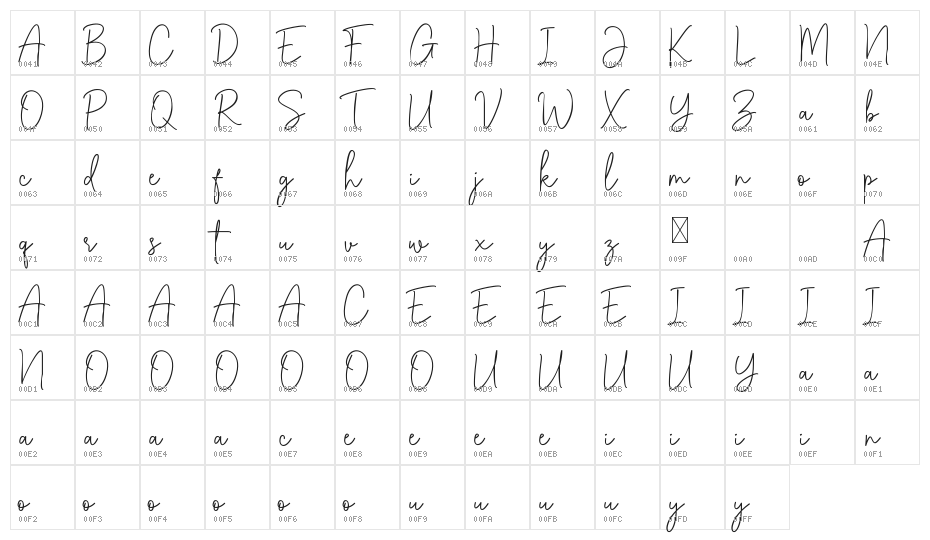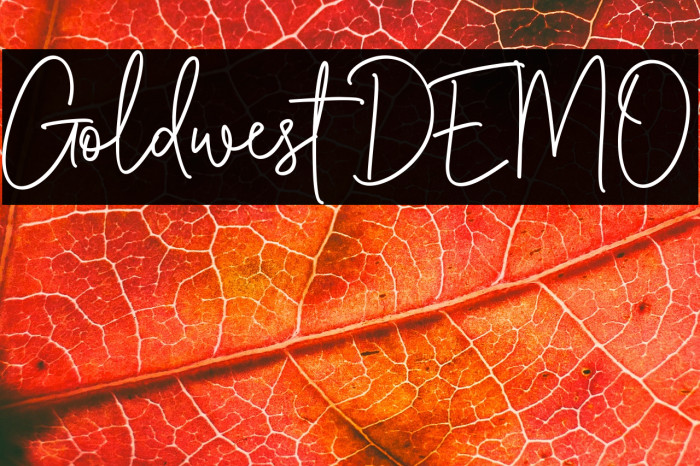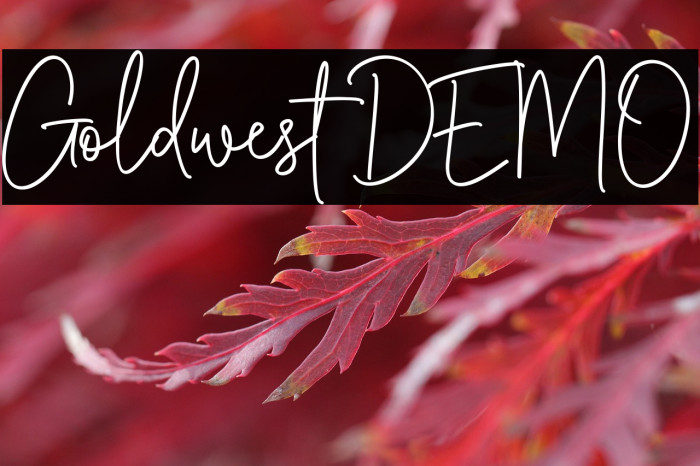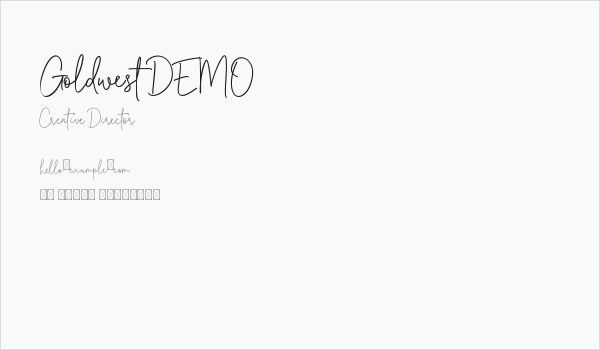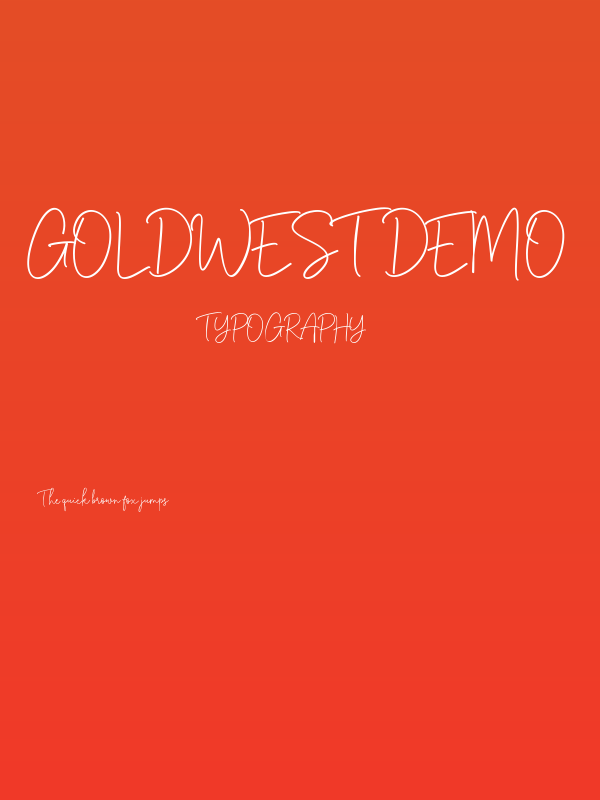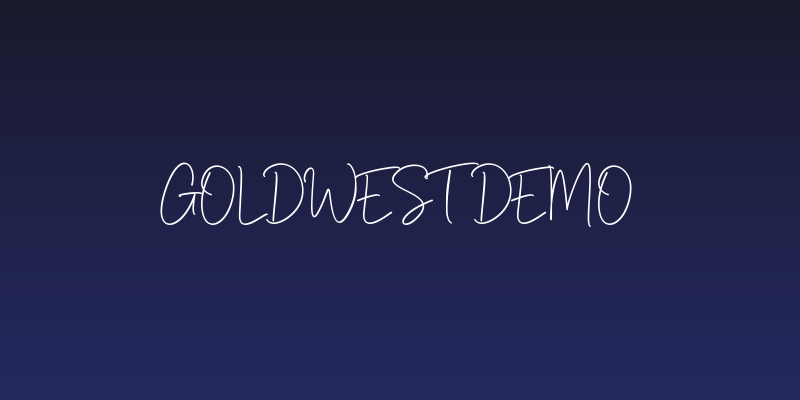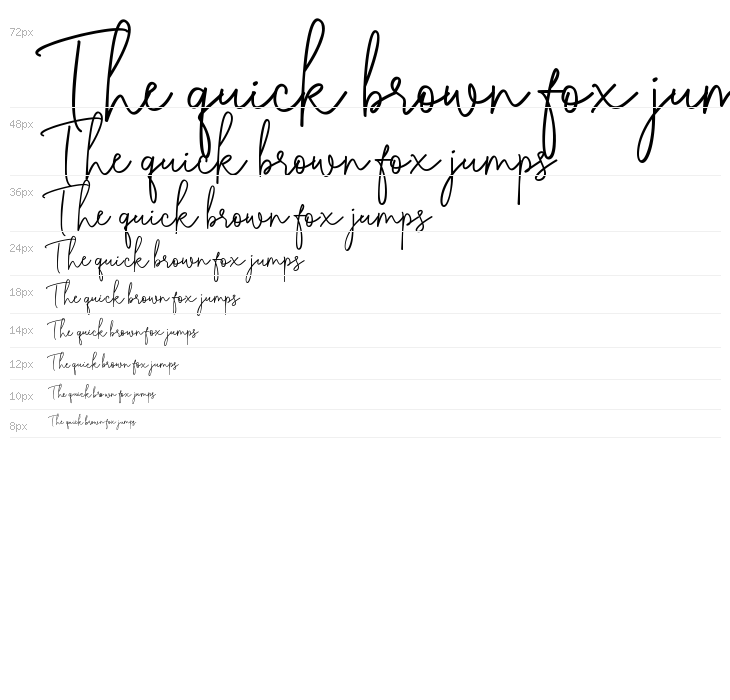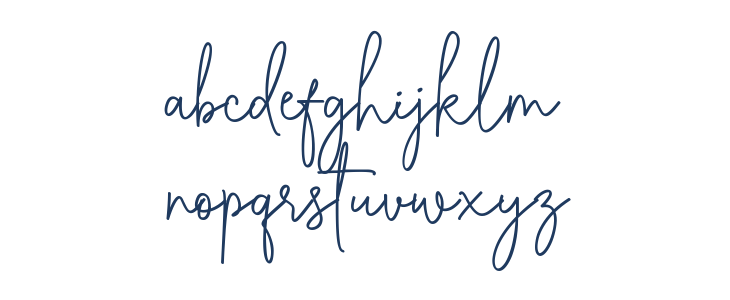
Goldwest DEMO Font
Goldwest DEMO Description
This font features a playful and elegant handwritten style, characterized by its fluid and continuous strokes. The uppercase letters are tall and slightly narrow, giving a sense of sophistication and grace. The lowercase letters are more rounded and connected, enhancing the handwritten feel. The overall design is airy and light, with a casual yet refined appearance. The font maintains a consistent stroke width, contributing to its clean and modern look. It is versatile and can be used in various design contexts where a personal touch is desired.